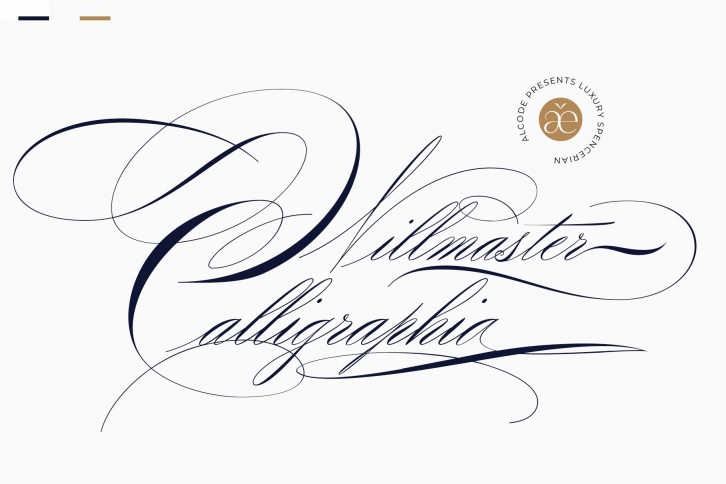
Willmaster Calligraphia is a trendy and unique font with an authentic style. It was designed by Alcode and it's a great choice for creative people who need such a font. It was released on April 13, 2020 and the file size is 18.63 MB. Willmaster Calligraphia will add an organic vibe to any design idea!